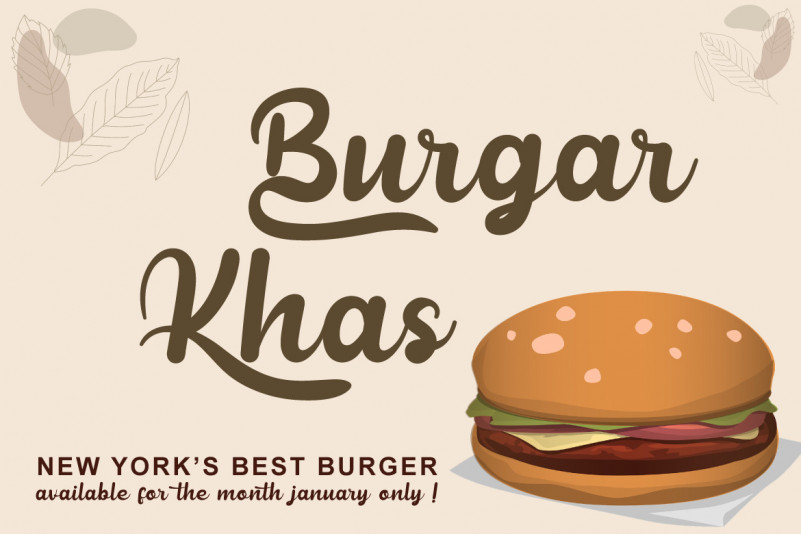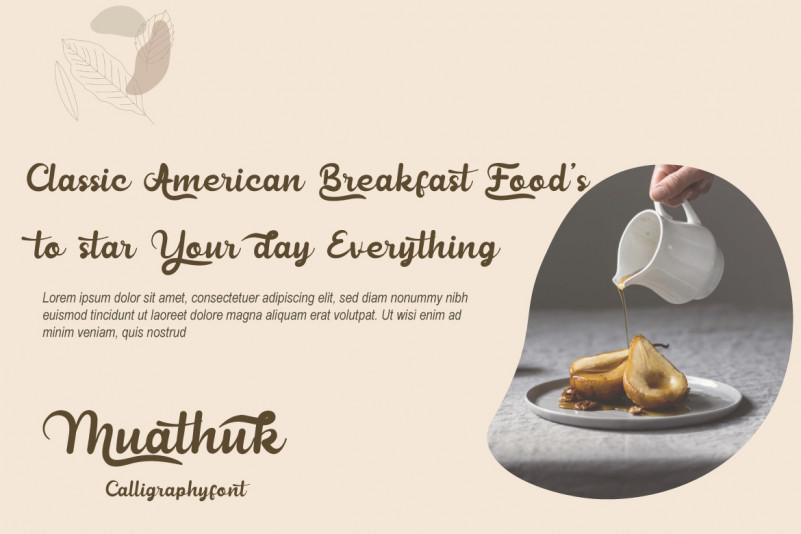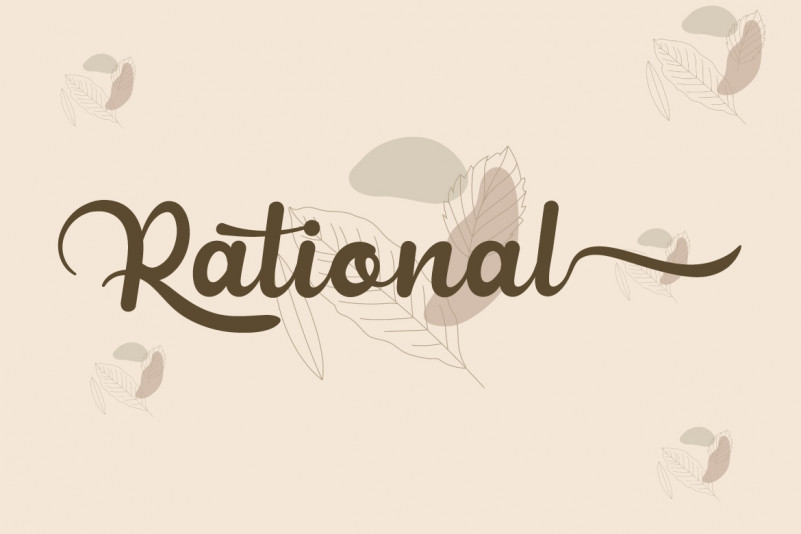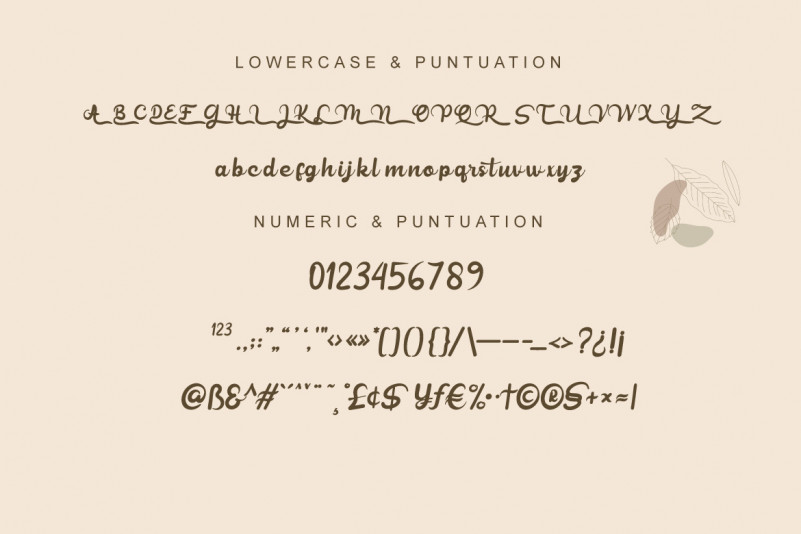
Muathuk Font
Muathuk Calligraphy Font
This is an elegant and flowing calligraphy typeface. It features a varying baseline, smooth lines, gorgeous glyphs and stunning alternates. It maintains its classy calligraphic influences while feeling contemporary and fresh. Fall in love with this font and bring your projects to the highest levels!